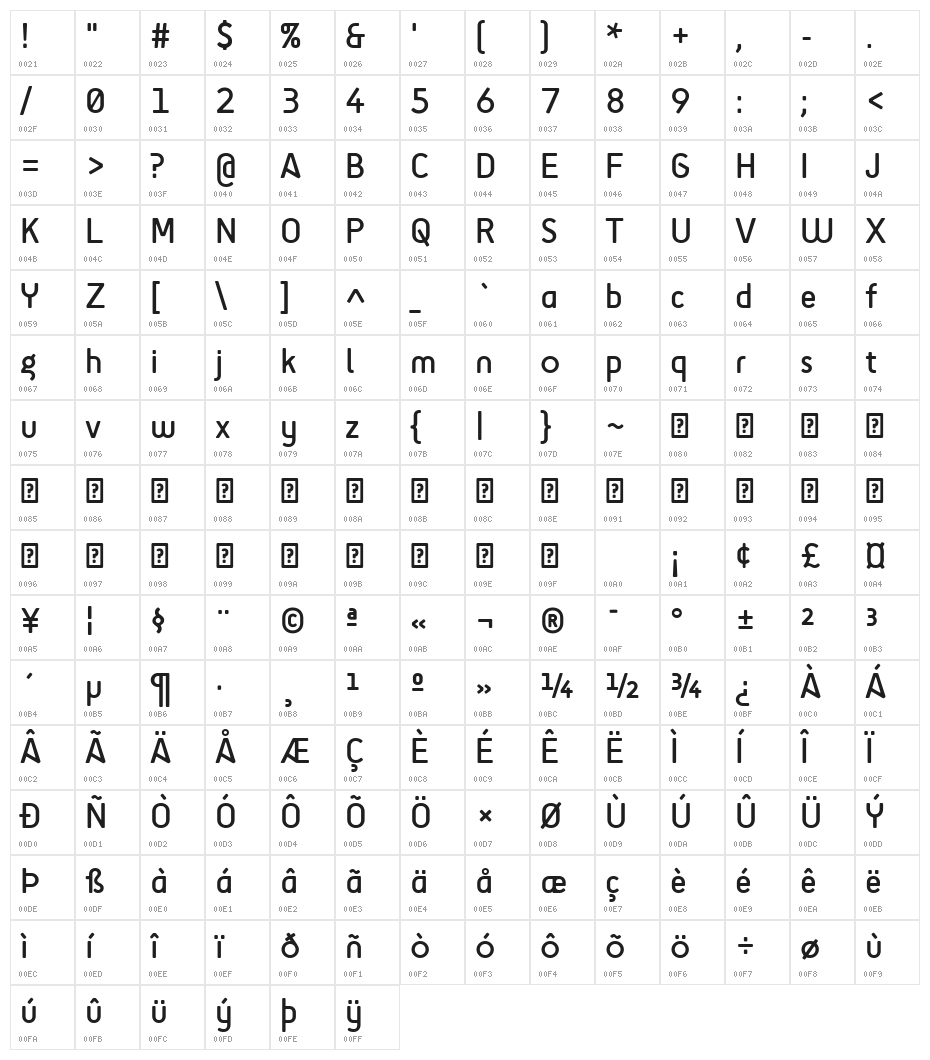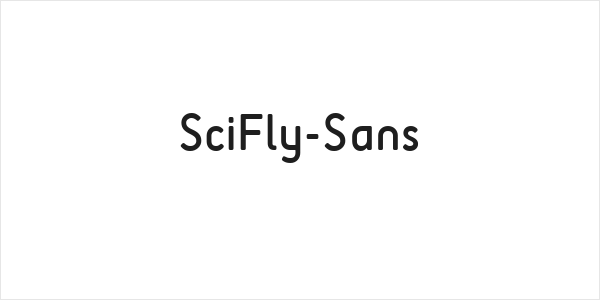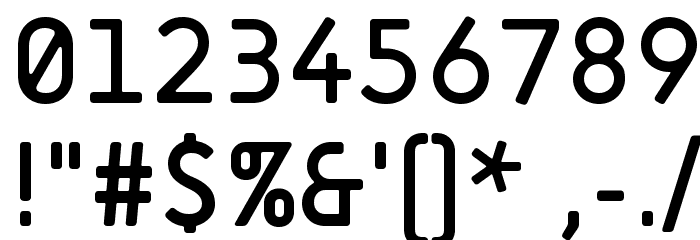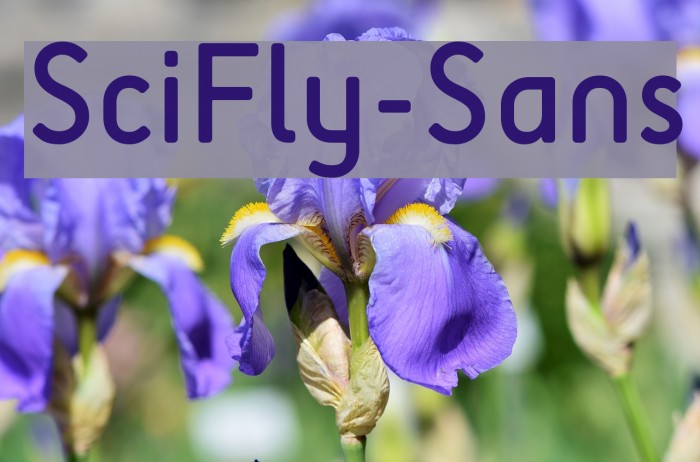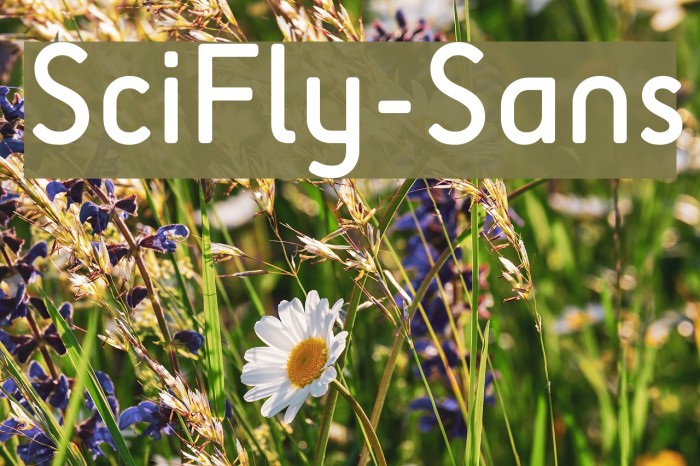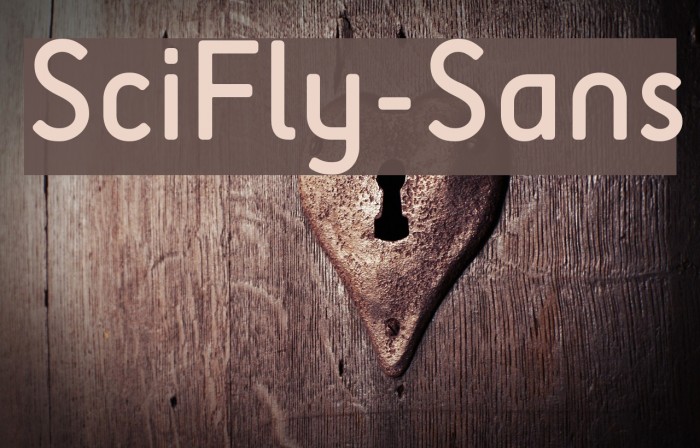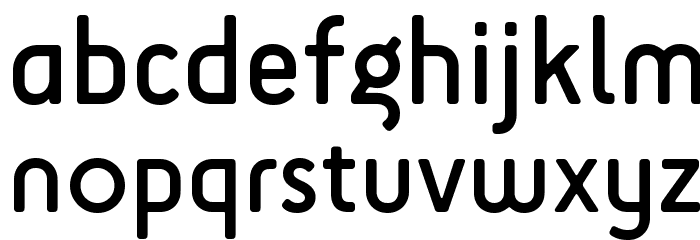
SciFly-Sans Font
SciFly-Sans Description
This typeface presents a clean and modern aesthetic with rounded edges and a uniform stroke width, contributing to its approachable and friendly appearance. The characters are well-proportioned, offering a harmonious balance between height and width. The uppercase letters maintain a consistent height, while the lowercase letters are slightly more compact, enhancing readability. The numerals are clear and distinct, making them suitable for both digital and print applications. Special characters are designed with the same attention to detail, ensuring they integrate seamlessly with the rest of the character set. Overall, this font is versatile and can be used in various contexts where clarity and modernity are desired.
| Proposed Projects | Ideal for tech branding, user interfaces, digital content, and educational materials. |